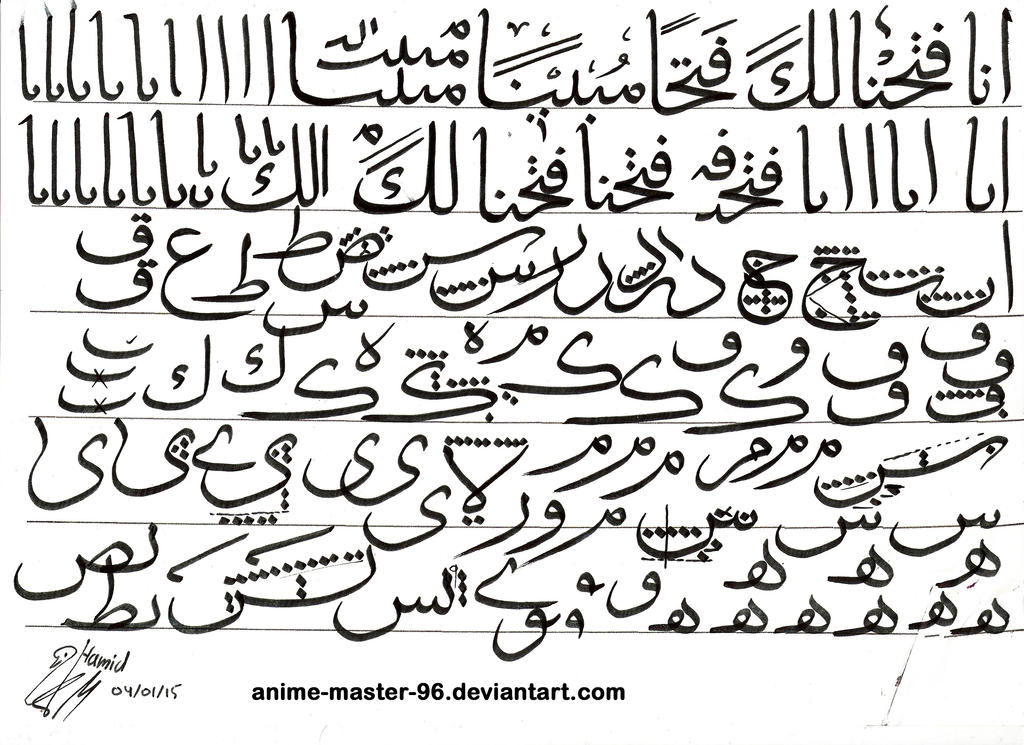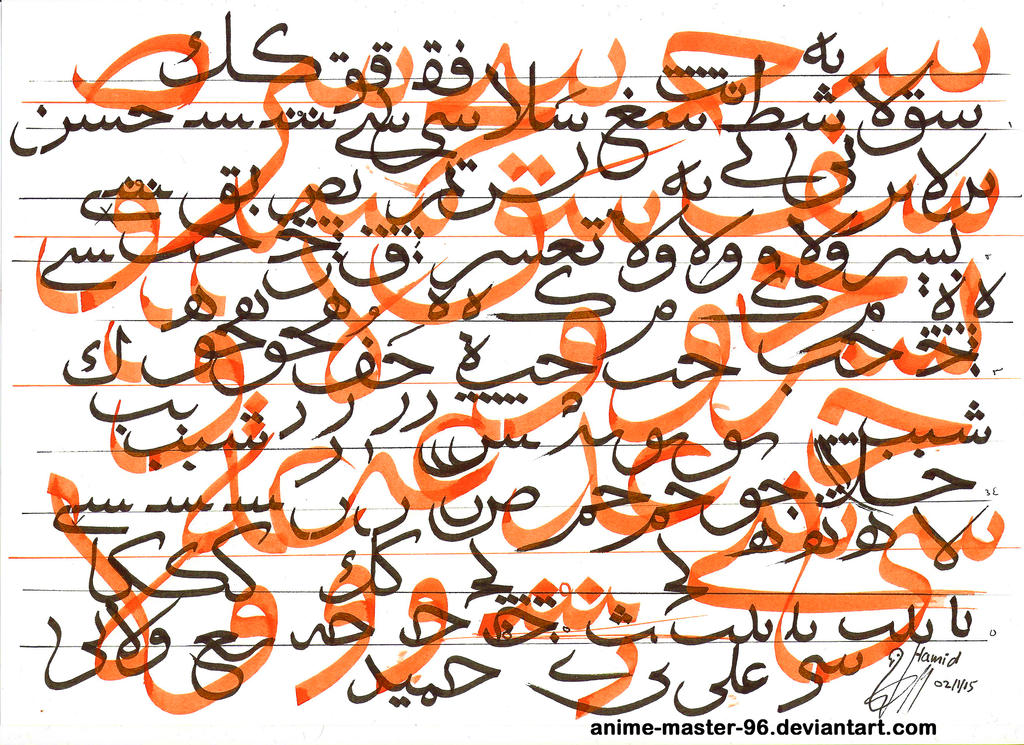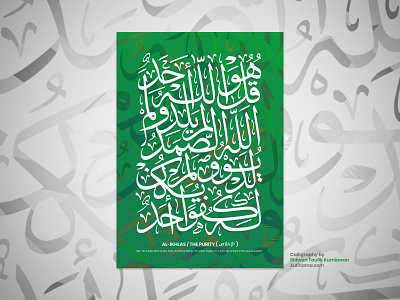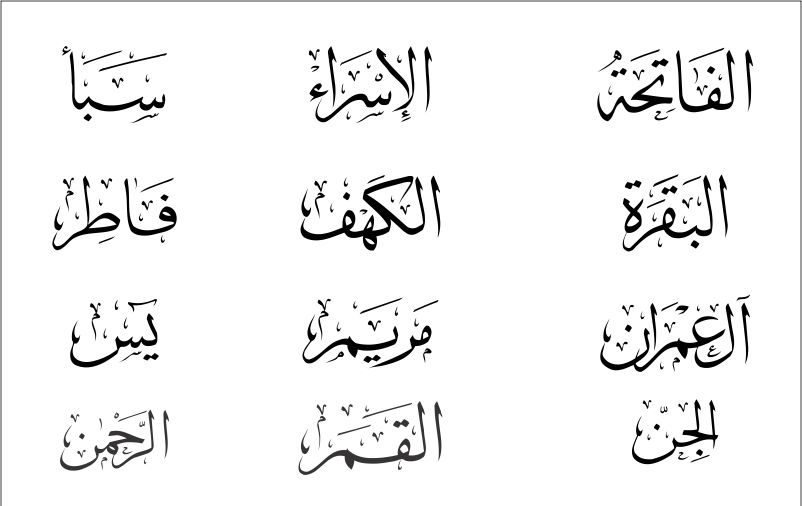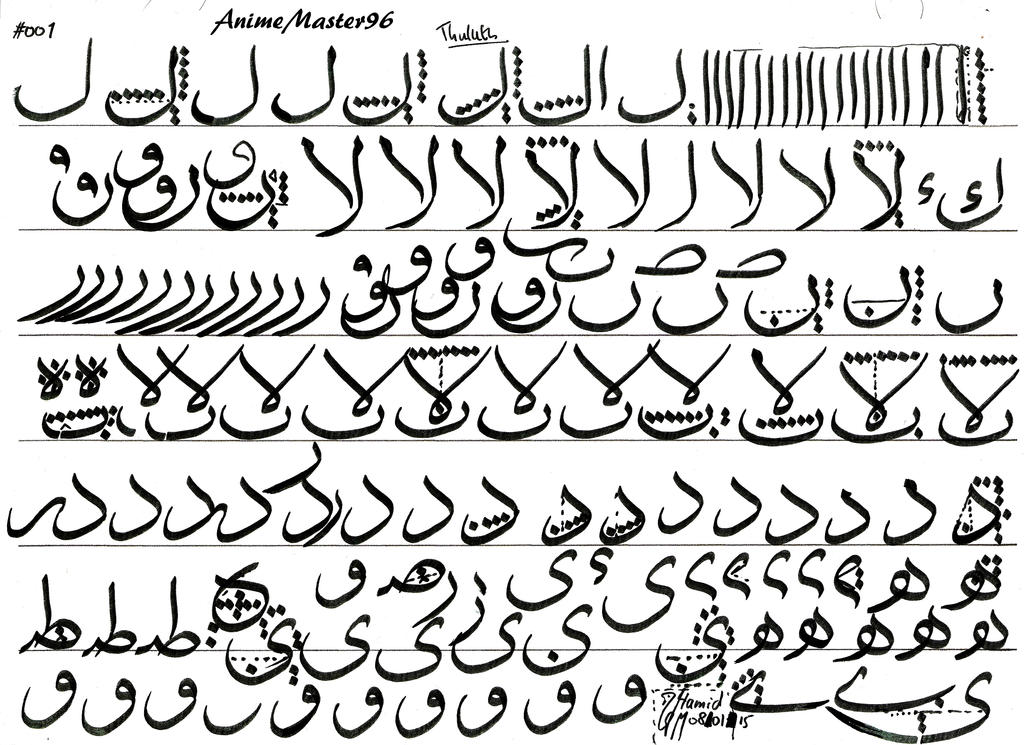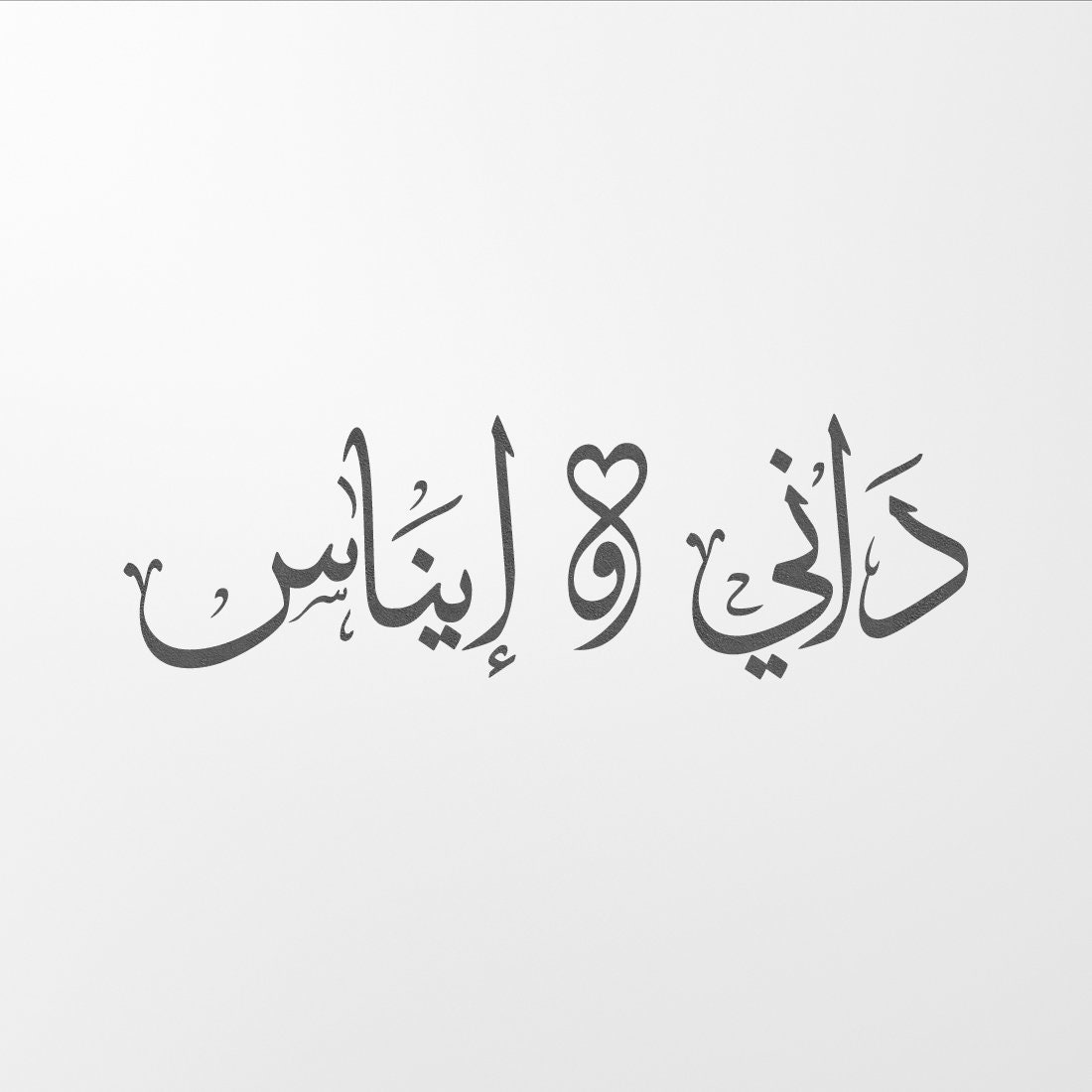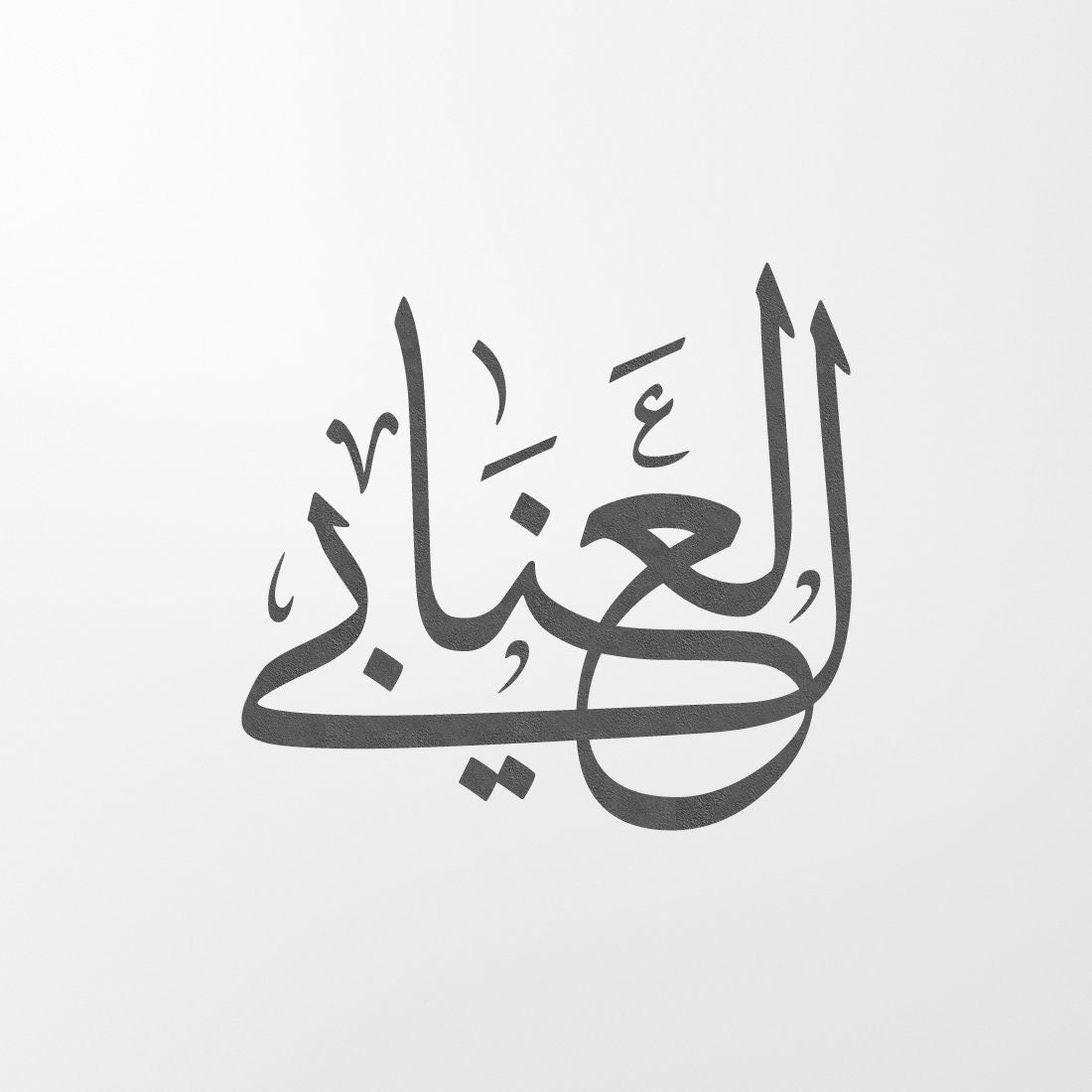
Arabic calligraphy integrates a cultural language with the language of geometry. It is a large and elegant cursive script used in medieval times on mosque decorations.
Pin Di Arabic Font. Out of love and admiration to the rich and artistic practice of Arabic calligraphy and fonts such as Thuluth Dewani and Nasikh we have introduced Kaleam the revolutionary platform that allows all those passionate about this art to create personalized fonts and calligraphy arts. It was the first font in THARWAT which is similar to calligraphy of THULUTH of real calligrapher.
Arbfonts diwany thuluth Regular is a Regular TrueType Font. The straight angular types of Kufic were supplanted in the new content with the curves. The straight angular forms of Kufic were replaced in the new script by curved and oblique lines.
Thuluth script was first formulated in the 7th century at the time of the Umayyad caliphate but it did not progress. In Thuluth 33 of each letter slants from which the name signifying a third in Arabic comes. Thuluth font in Arabic Calligraphy UmmulHasanaat.
The Thuluth Arabic font style is downloadable and free for use. The name means a third maybe due to the proportion of straight lines to curves or maybe because the script was a third the size of another common contemporary script. The font is a regular type Arabic font and the font is free for personal use.
NamesinarabicWe are a unique design studio and we specialize in custom traditional Arabic calligraphy in Thuluth Persian and Diwani calligraphy scripts Thuluth Calligraphy Generator arabic calligraphy styles thuluthThuluth script was first formulated in the 7th century at the time of the Umayyad caliphate but it did not progress entirely until the late 9th century fontsCreate text. DecoType Thuluth Regular is a Regular TrueType Font. A Thuluth Font Arabic.
Thuluth font in Arabic Calligraphy Madrasah Ummul Hasanaat. A Thuluth is a regular Arabic font with a bright green background the dots are also colored in contrast to the background. In Thuluth one-third of each letter slopes from which the name meaning a third in Arabic comes.
This elegant font was utilized in medieval occasions on mosque enrichments. Check out Character Map section to understand the Calligraphy of DecoType Thuluth Regular. Check out Character Map section to understand the Calligraphy of arbfonts diwany thuluth Regular.
Entirely until the late 9th century. Though rarely utilized for writing the Holy Quran Thuluth has enjoyed great popularity as an ornamental script for calligraphic. Bahij Myriad Arabic Font.
I added many glyphs to each other to get this feature and it become easier to graphic designer to write with Arabic THULUTH font without real calligrapher it was beautiful in Headlines of Arabic books and photos. Arabic Calligraphy Thuluth Font Writing Of The Name Usama. Royalty Free Arabic Font.
It has been downloaded 5488 times. It was the first font in THULUTH which is similar to calligraphy of THULUTH of a real calligrapher There are many glyphs which are added to each other to get this feature and it become easier to graphic designer to write with Arabic THULUTH font without real calligrapher it is the best in Headlines of Arabic books and photos. Thuluth is a script assortment of Islamic calligraphy designed by Ibn Muqlah Shirazi.
Sülüs is a script variety of Islamic calligraphy which made. This font style is quite close to the Latin script. Sülüs is a script variety of Islamic calligraphy which made its first appearance in the 11th century CE fourth century of the Hijrah.